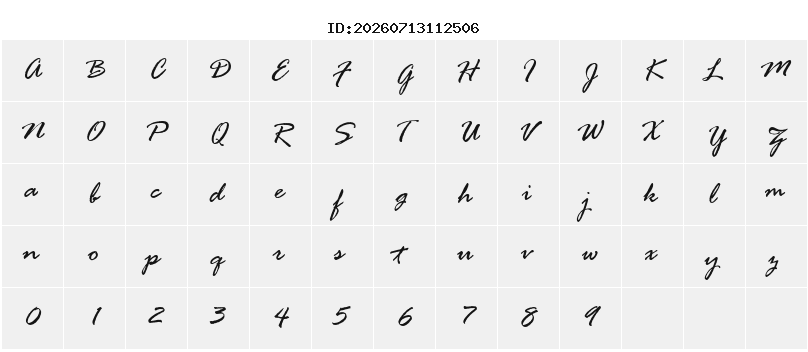
• Font Name: Rage Italic
• Designer: Ron Zwingelberg M.W.
• Manufacturer: International Typeface Corporation
• Description: American graphic designer Ron Zwingelberg created Rage in 1984. This popular style is one of the first casual brush script styles with a rough textured edge. The lower case letters can be linked up and are supported by a set of initialing capitals. These capitals are designed to be used as the first letter of a word. Rage Italic is an ideal choice where a spontaneous pen on parchment look is required.